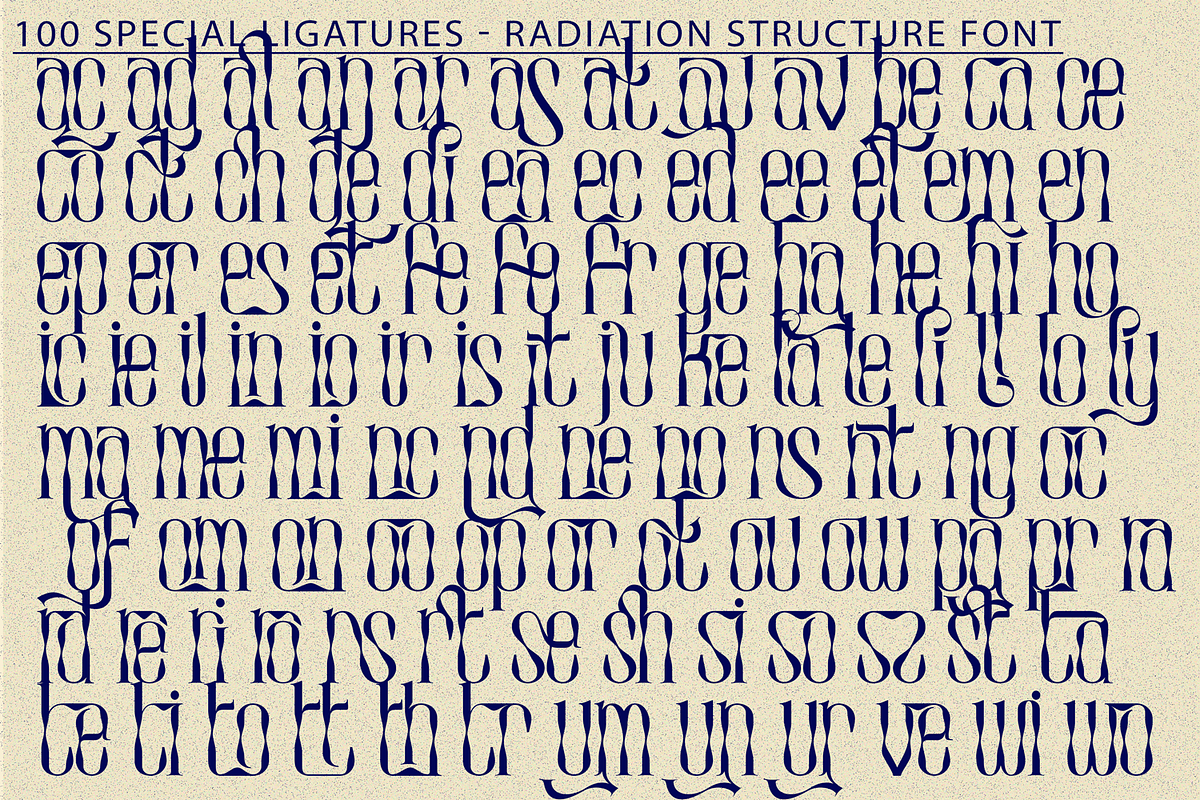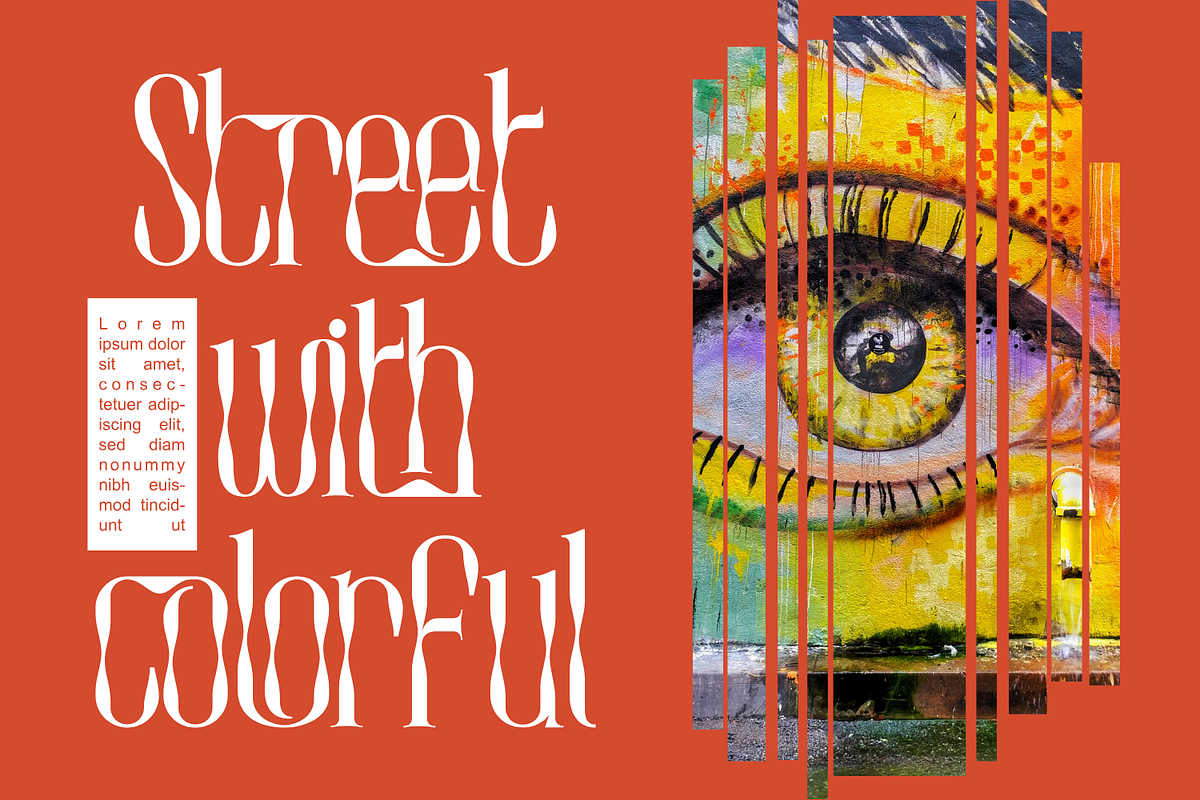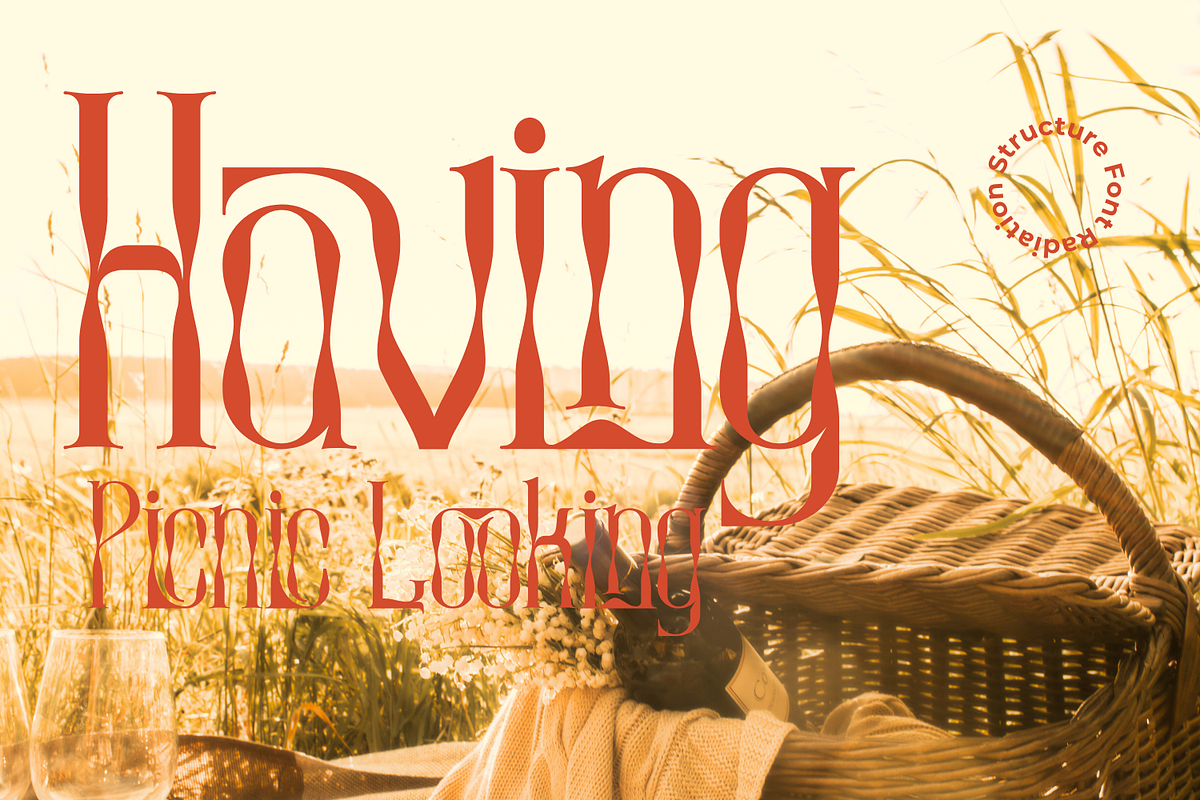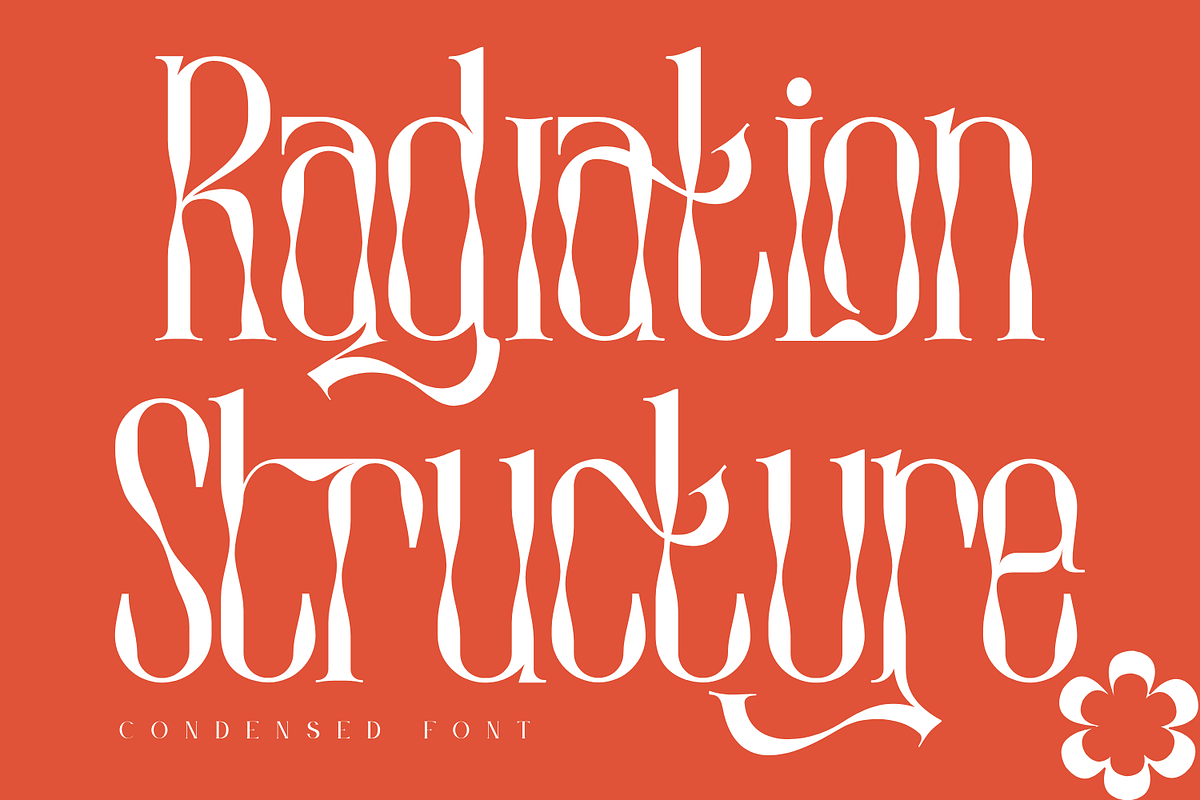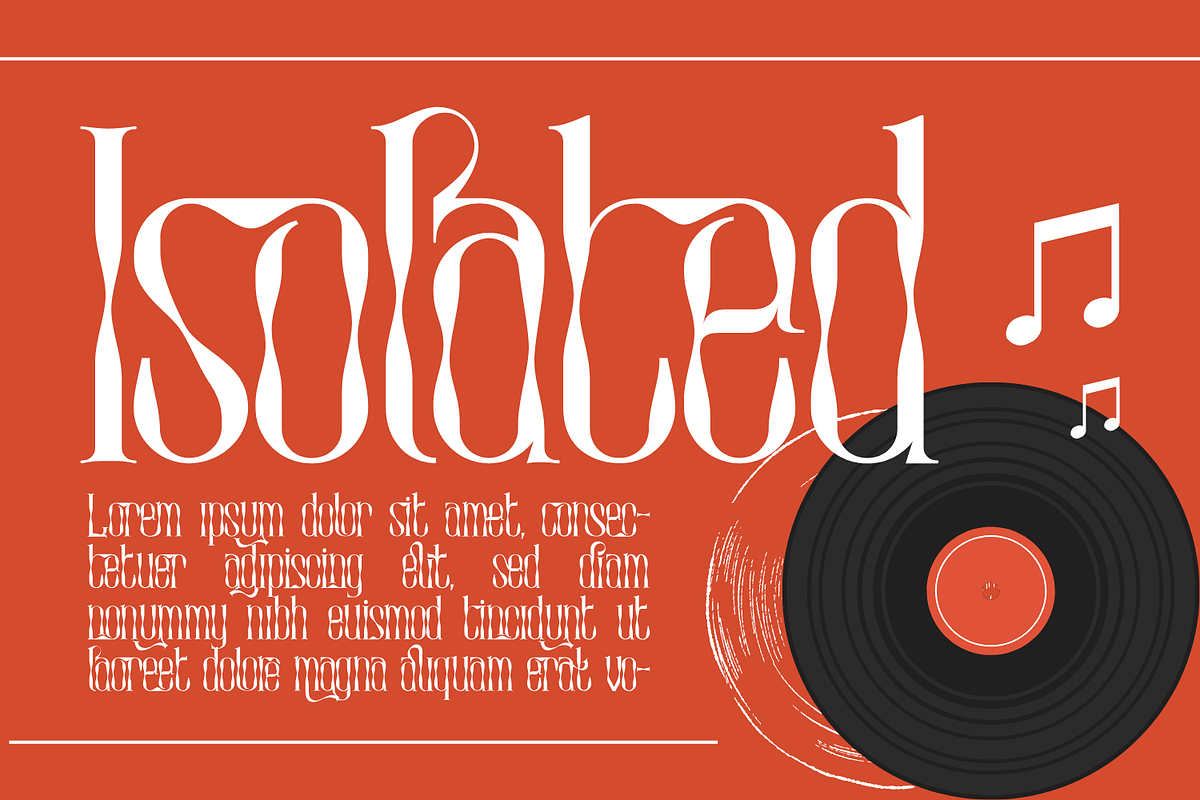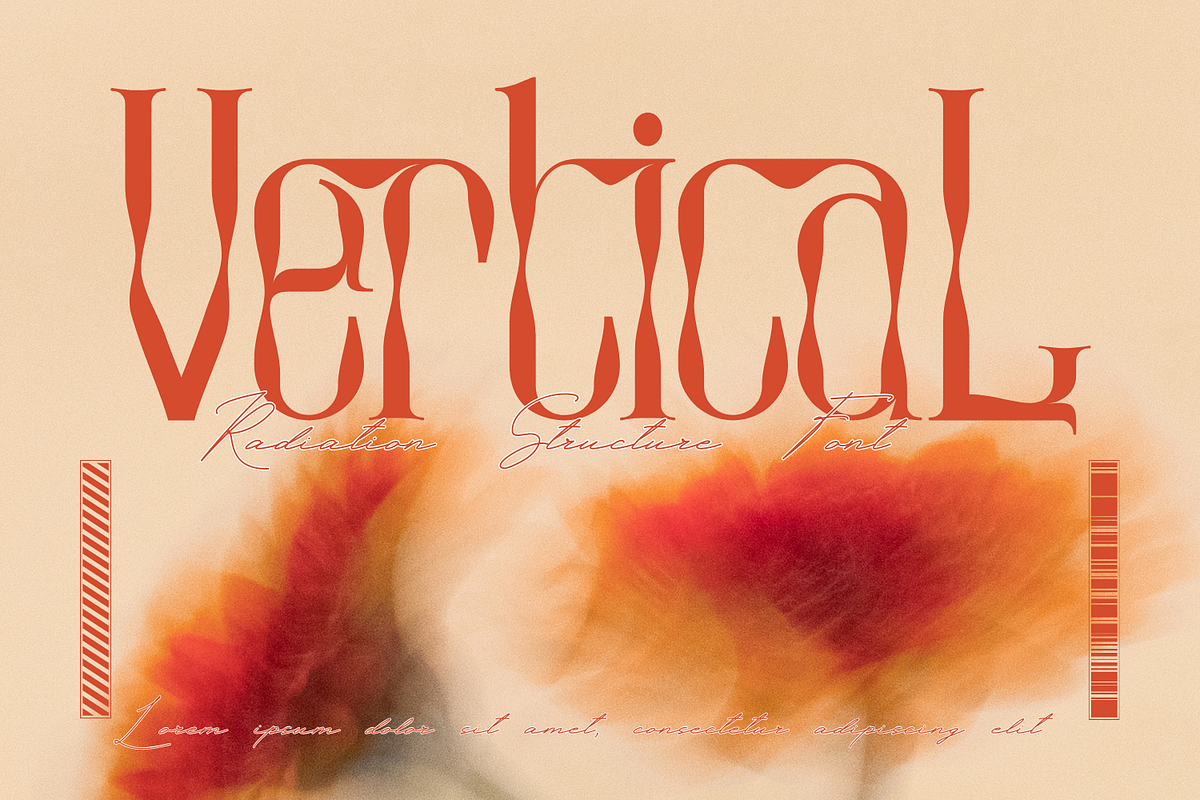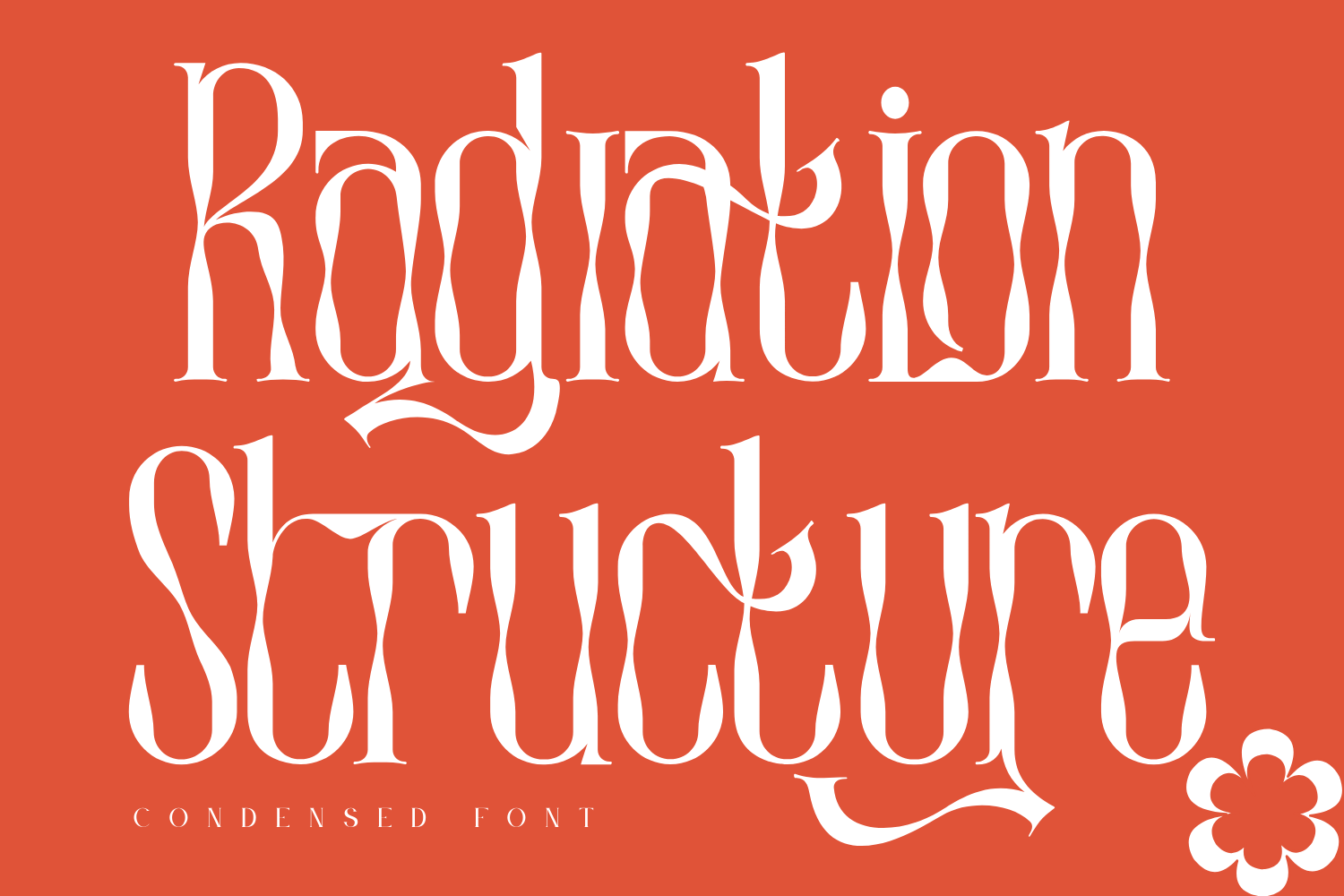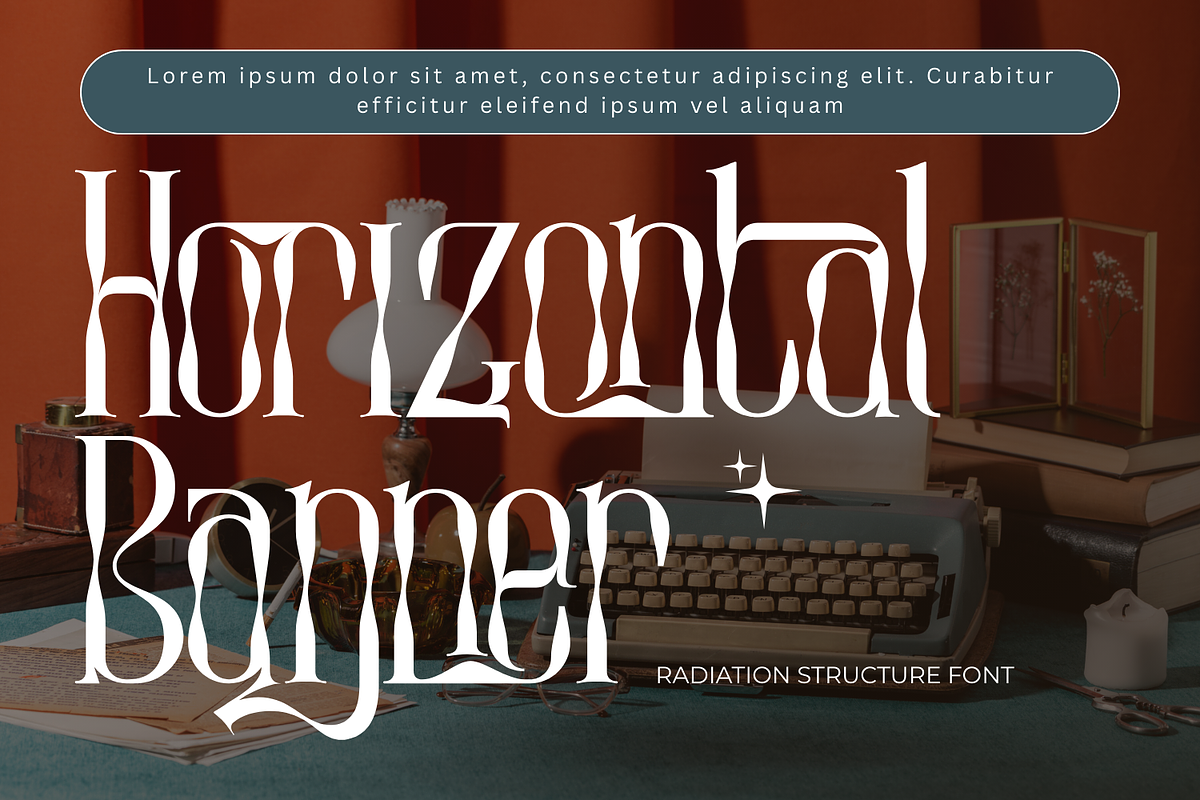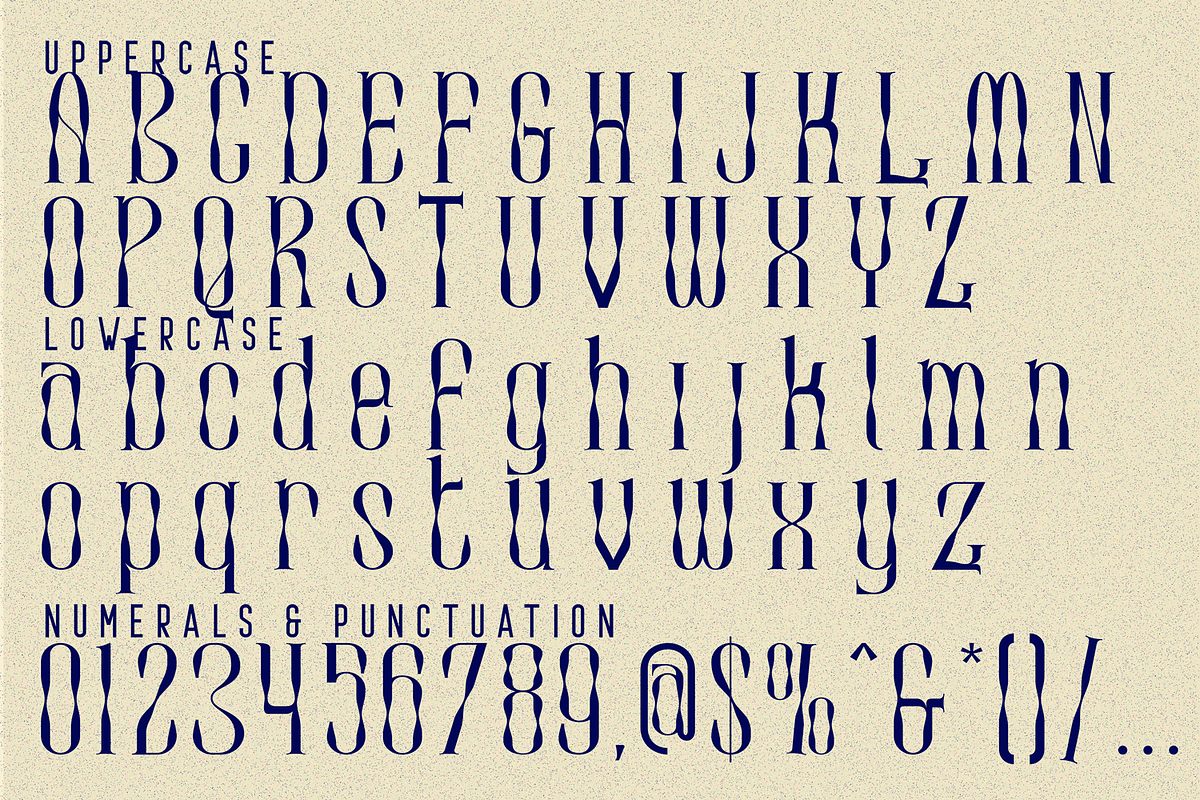
Radiation Structure - Condensed Font
Radiation Structure - Condensed Font is a decorative serif display typeface inspired by organic calligraphy and expressive editorial typography. Featuring elegant high-contrast strokes, flowing curves, and gracefully extended serifs, this font brings a handcrafted and artistic character to modern design. Including both Uppercase and Lowercase letters, approximately 100 custom special ligatures, complete Numerals & Punctuation, and extensive Accented characters, Radiation Structure allows designers to create emotional, fluid, and visually rich compositions. Its ornamental ligature system and rhythmic letterforms make it ideal for branding, packaging, posters, book covers, fashion editorials, and vintage-inspired creative projects.
- Uppercase & Lowercase Letters
- Around 100 Special Ligatures & Alternates
- Accented Characters for multilingual support
🔤About 100 ligatures combined with Stylistic Alternates Font:
ac ad al an ar as at au av be ca ce ch co ct de di ea ec ed ee el em en ep er es et fe fo fr ge ha he hi ho ie ic il in io ir is it ju ke la le li ll lo ly ma me mi nc nd ne ng no nt ns oc of om on oo op or ot ou ow pa pr ra rd re ri ro rs rt se sh si so ss st ta te th ti to tr tt um un ur ve wi wo